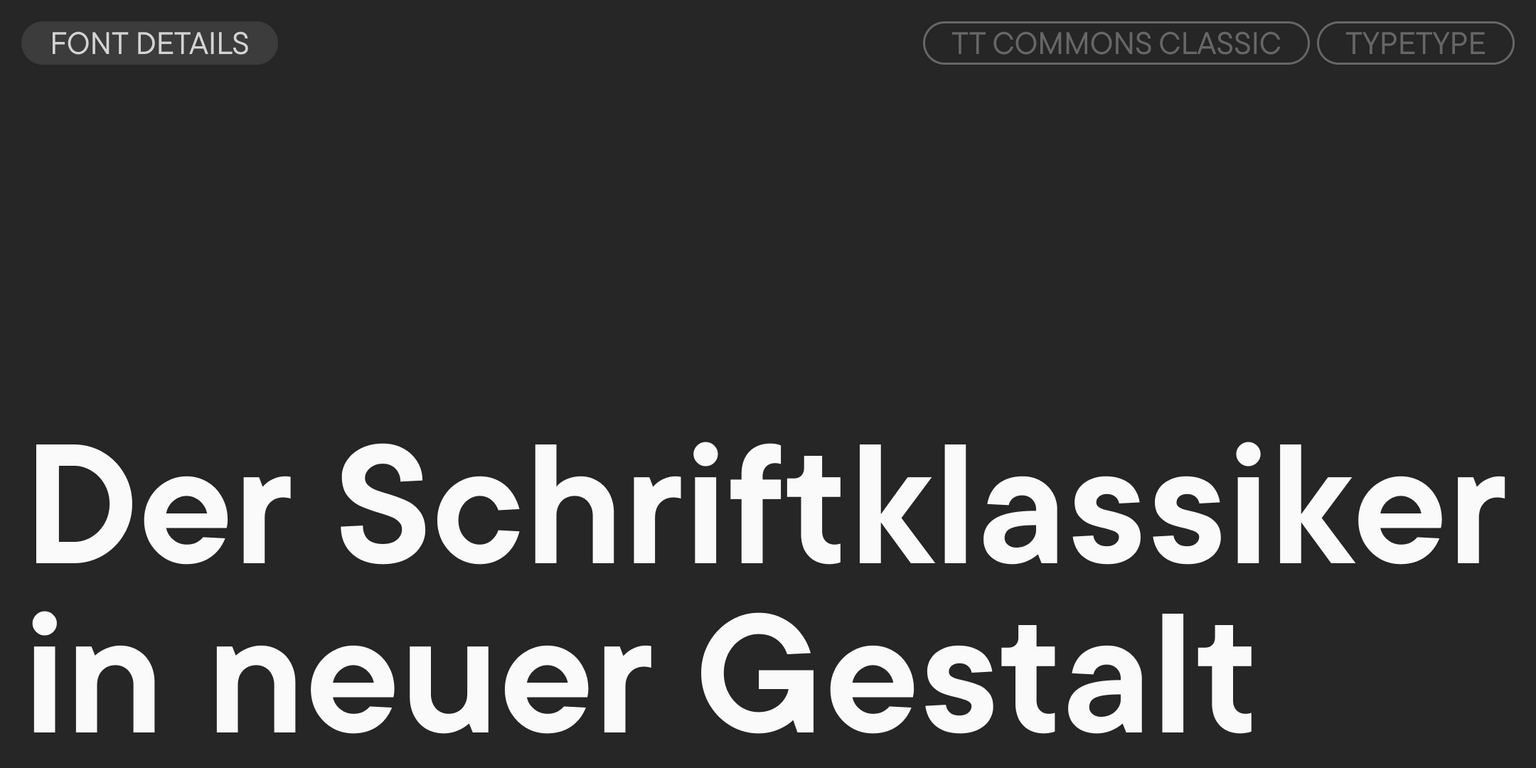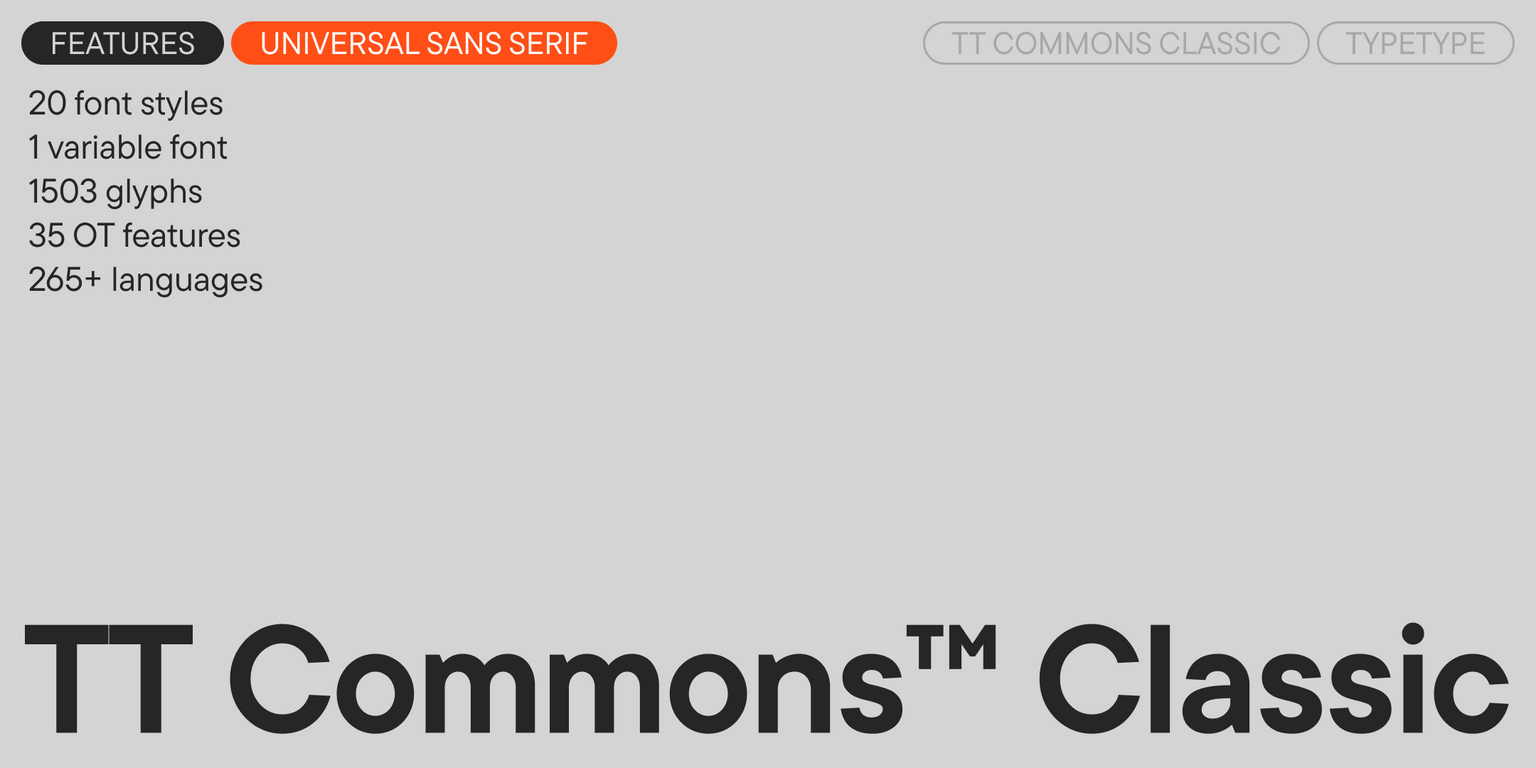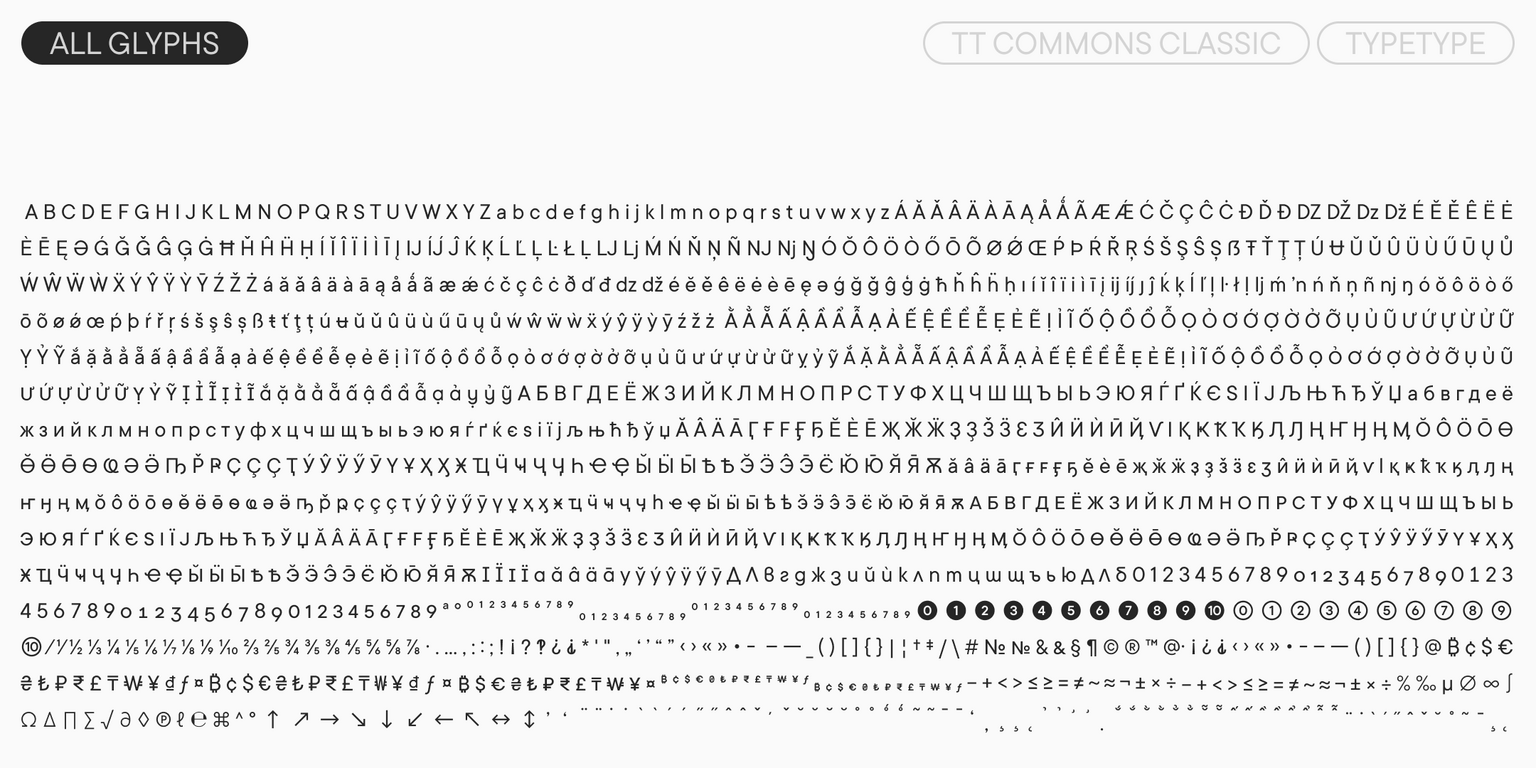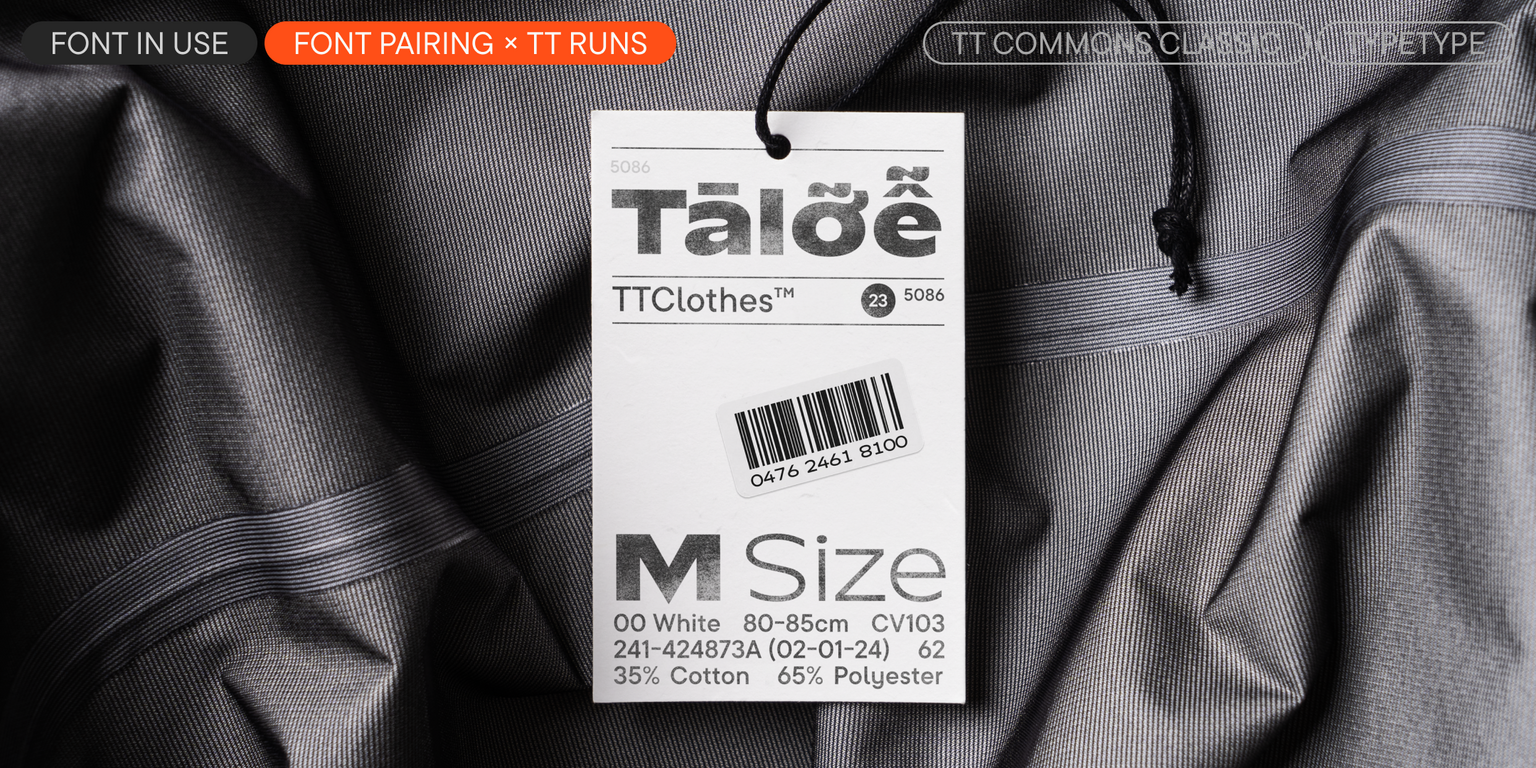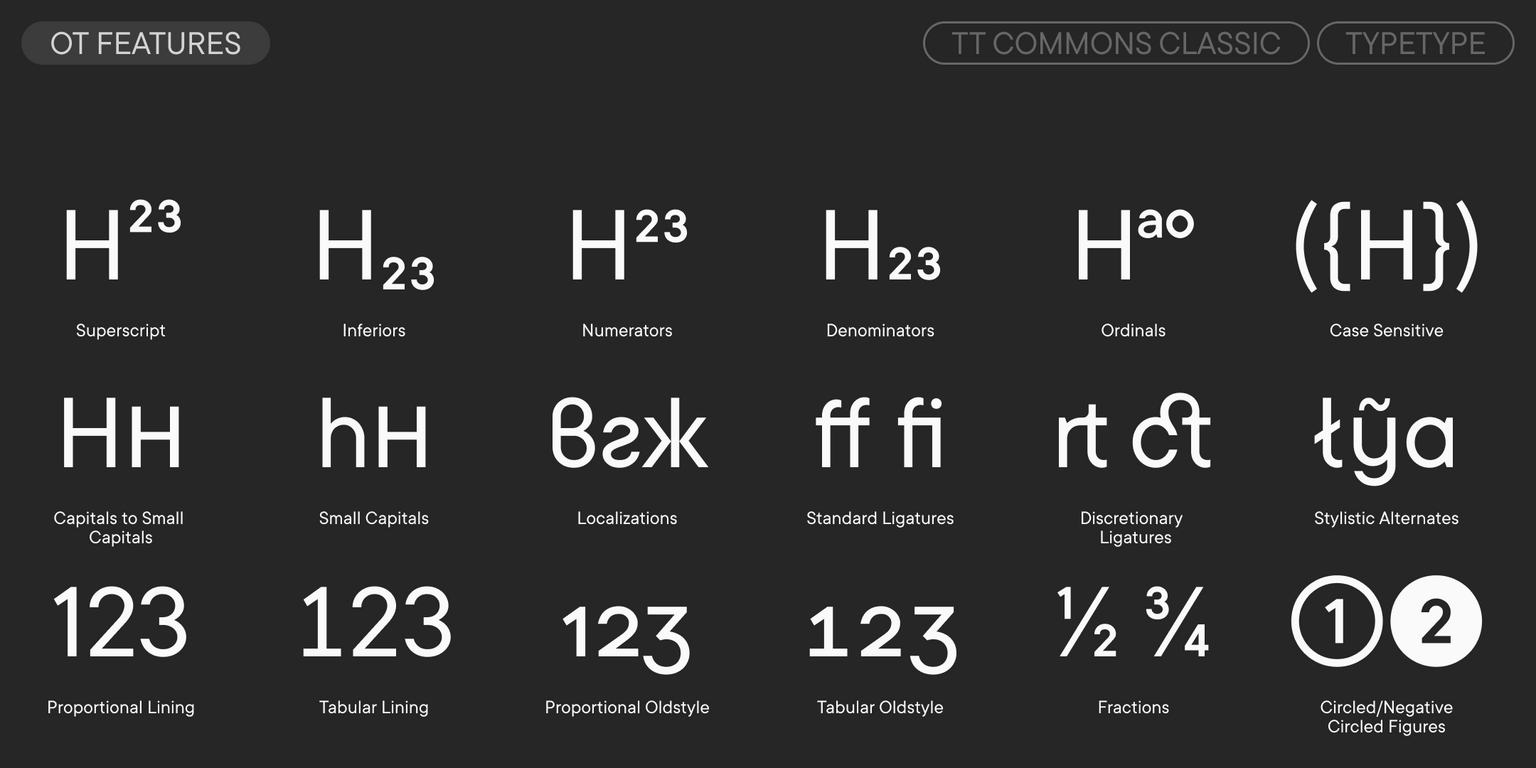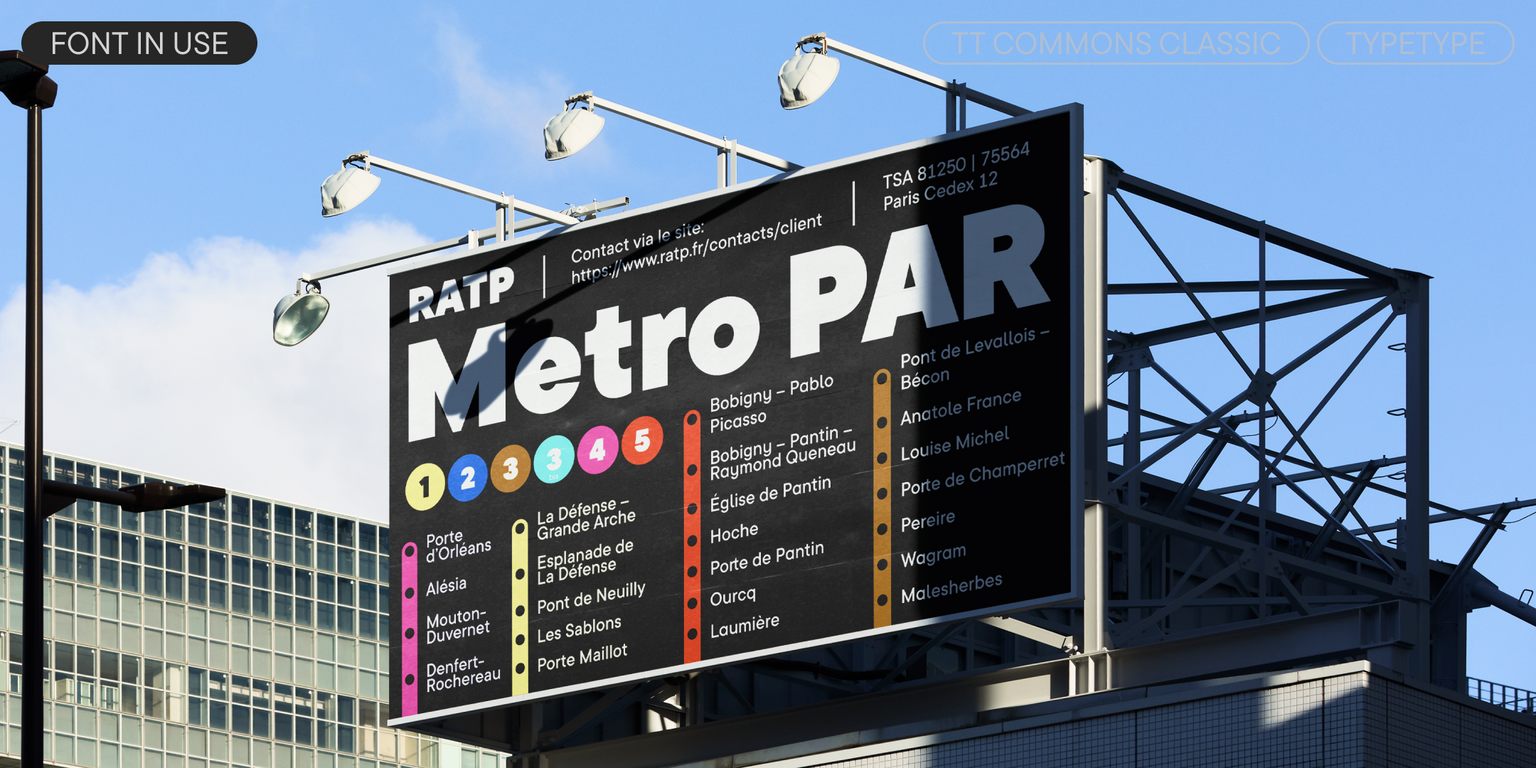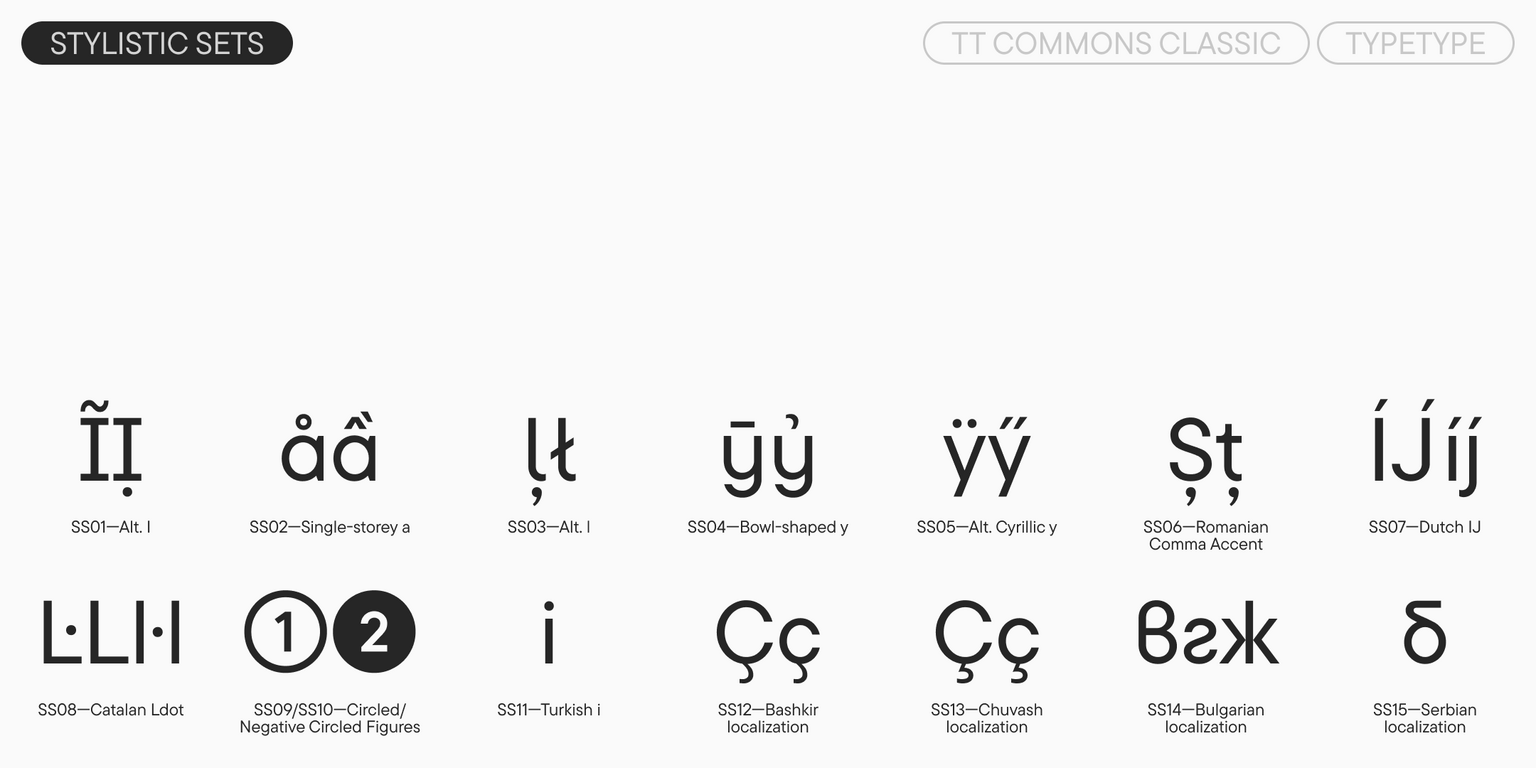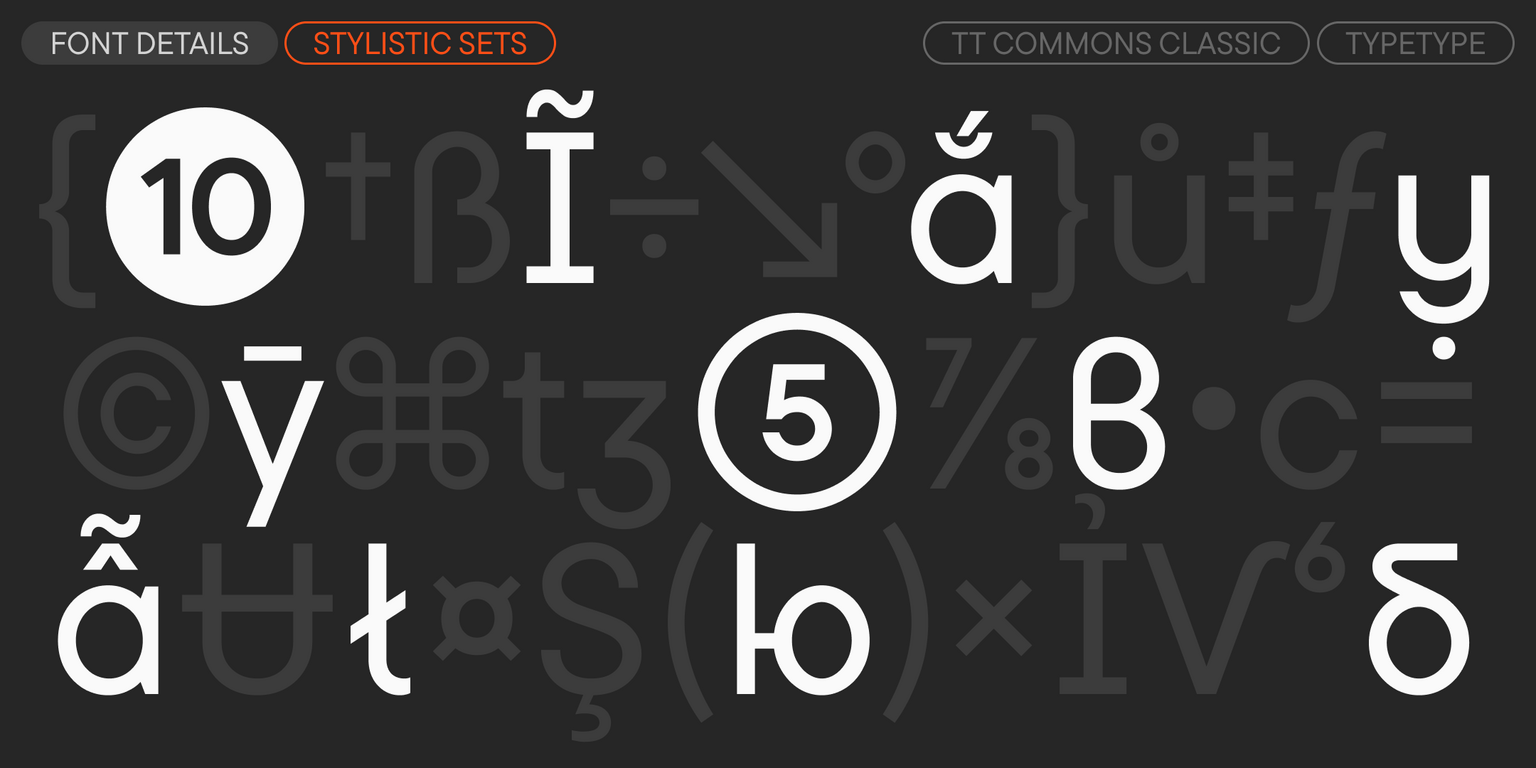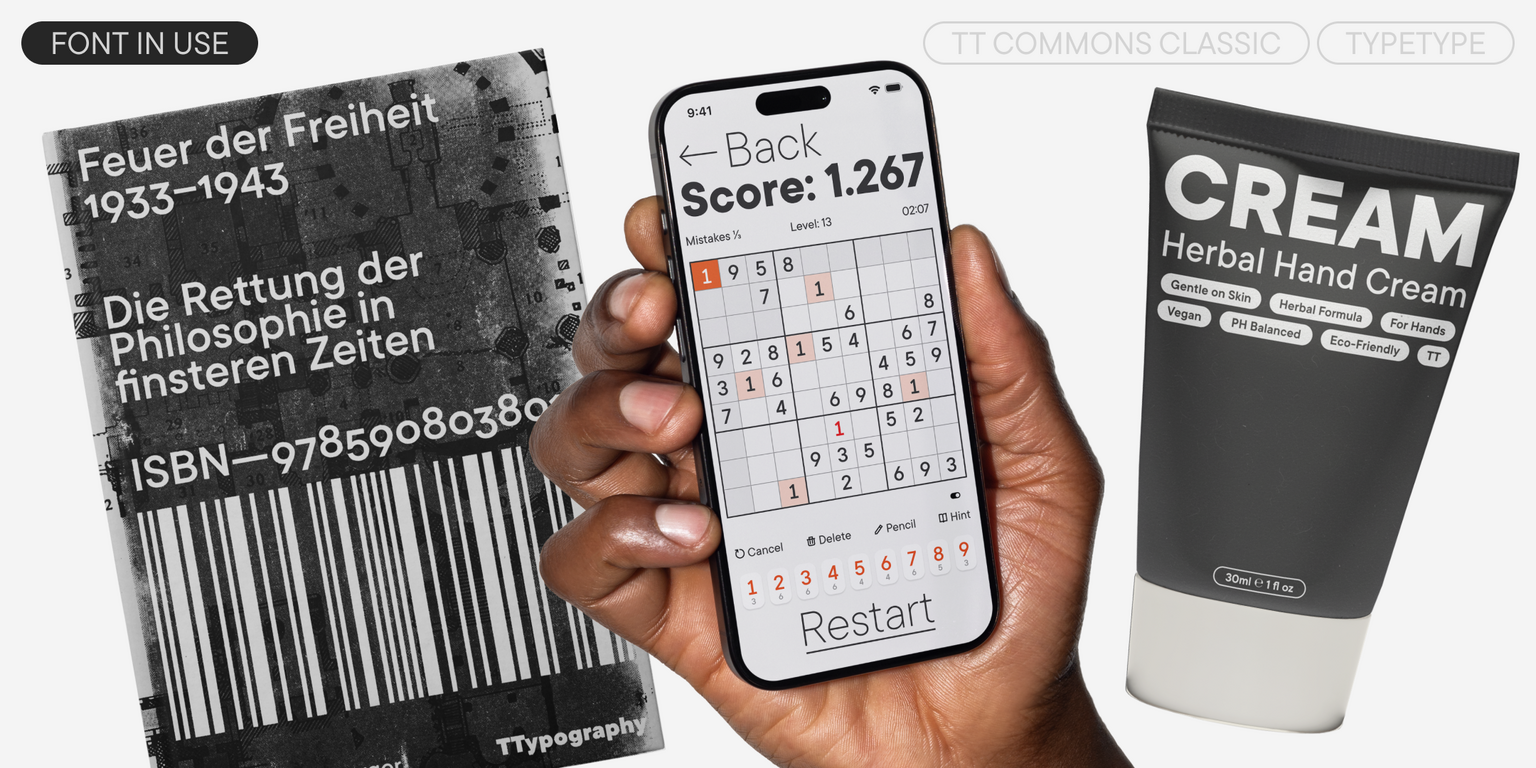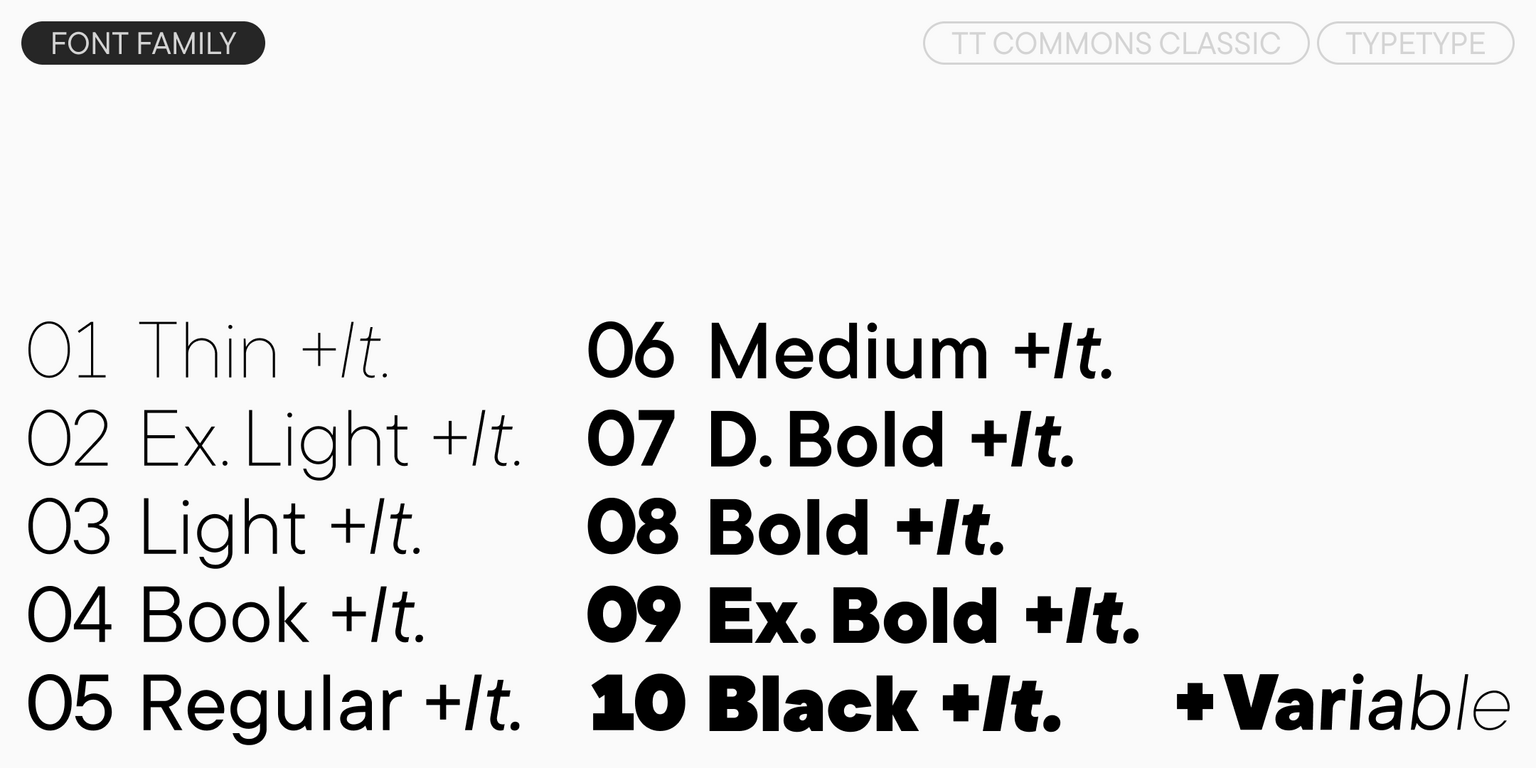
TT Commons™ Classic
TT Commons™ Classic is a versatile geometric sans serif suitable for diverse design contexts.
TT Commons™ Classic is a universal sans serif
The design of the typeface was developed for the widest possible range of tasks with which any quality corporate font is required to cope. Low contrast strokes and averaged drawing of letters makes TT Commons™ Classic excellent for large arrays of text. On the other hand, individually developed design of each glyph makes it possible to use it successfully as a display font. The typeface intentionally does not have distinctive decorative details.
The name TT Commons™ Classic comes from the word ’common’ (widely accepted, typical, frequent)
This typeface can be used for any everyday tasks related to typography
Variable axes
Weight
Slant
About font family TT Commons™ Classic
Meet TT Commons™ Classic version 2.200!
We have updated the font styles and added new features, glyphs, and languages.
TT Commons™ Classic is a universal sans serif for everyday tasks. Its history is inextricably linked with the history of TypeType: originally, it was the studio’s official corporate font, created exclusively for internal use. However, thanks to active user interest, it soon turned into a full-fledged commercial typeface.
The name derives from the word «common,» reflecting its universal and ubiquitous nature. The font design was developed to be used for the widest possible range of tasks. Minimal stroke contrast, a closed aperture, and geometric forms make TT Commons™ Classic ideal for setting running text. On the other hand, it can also be used for display purposes, despite the intentional absence of decorative elements: the font attracts attention with its conciseness, simplicity, and polished forms.
In the updated version, we added an improved variable font, merging two styles (for upright and slanted characters) into a single variable system. Furthermore, new OpenType features, languages, and glyphs appeared, including glyphs for extended Latin.
Thanks to its minimalism and neutral character, TT Commons™ Classic is suitable for any sector. Small caps, stylistic alternates, ligatures, arrows, various figure types, and other features make the typeface even more functional. TT Commons™ Classic and the bestseller TT Commons™ Pro are based on the same graphics, but they have different contents and usage possibilities. TT Commons™ Classic is for you if you are looking for proven solutions for regular tasks, while TT Commons™ Pro is for when you need extended functionality with a large number of font styles, features, stylistic sets, and languages.